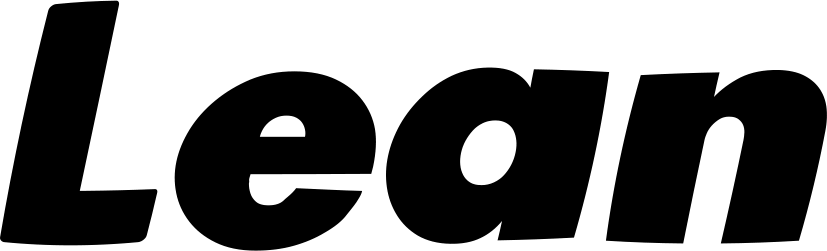
Lean Font
Designed byOgle Studio
Lean is a comic font in which all characters are designed bold and large, so it has great readability. This font conveys a sense of childishness, creativity, vivacity, and liveliness to the audience, therefore including it in producing graphic content such as banner ads, children’s books, and web page templates would be ideal.